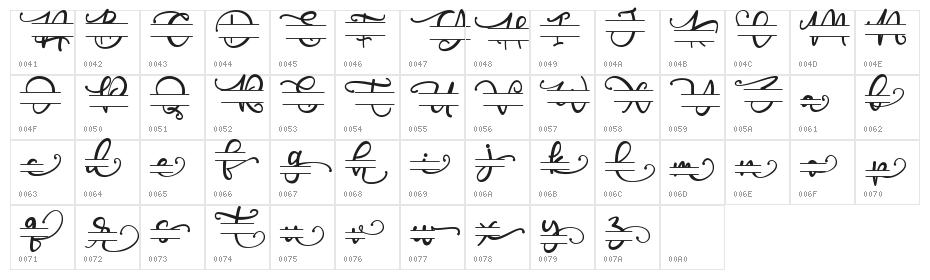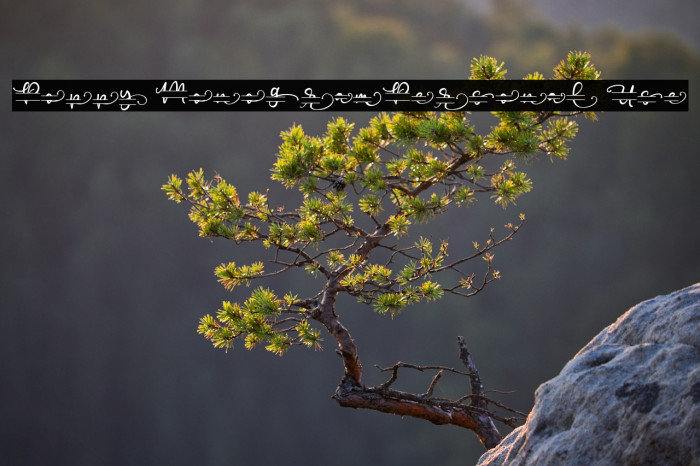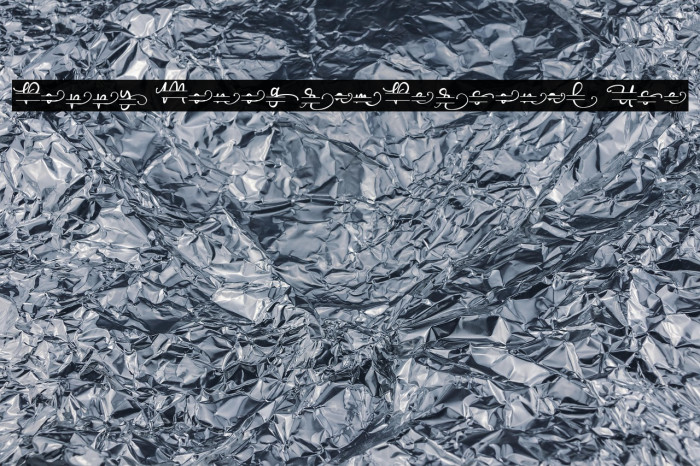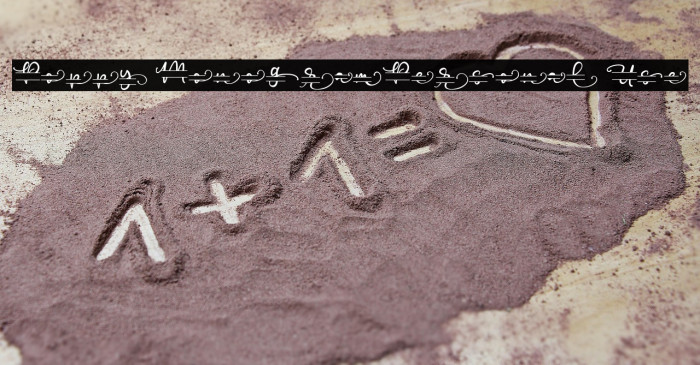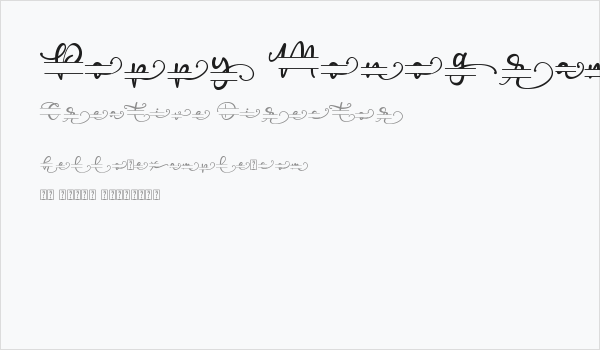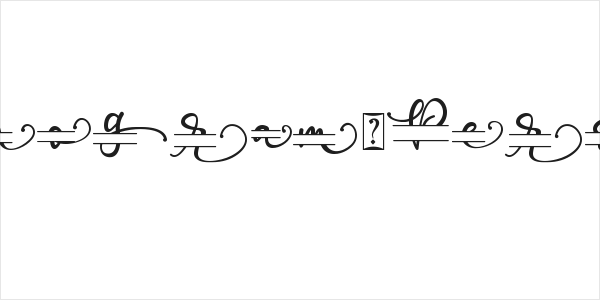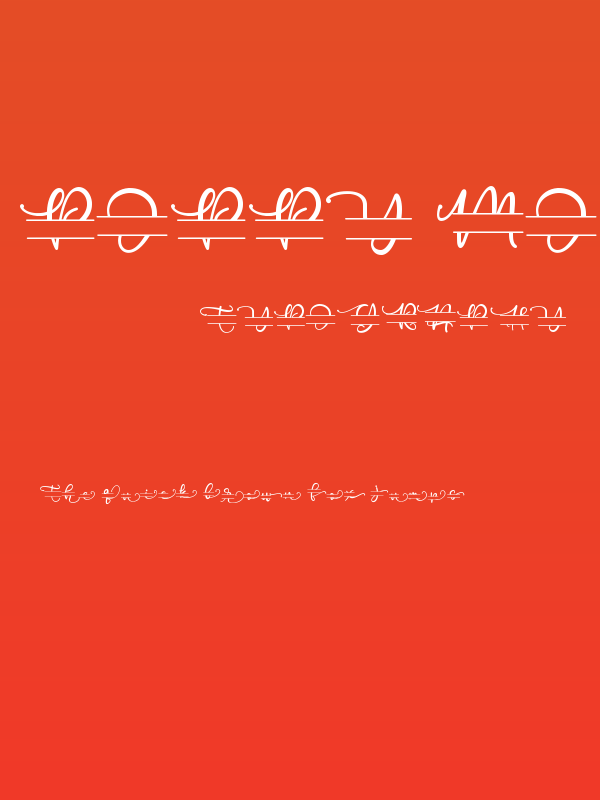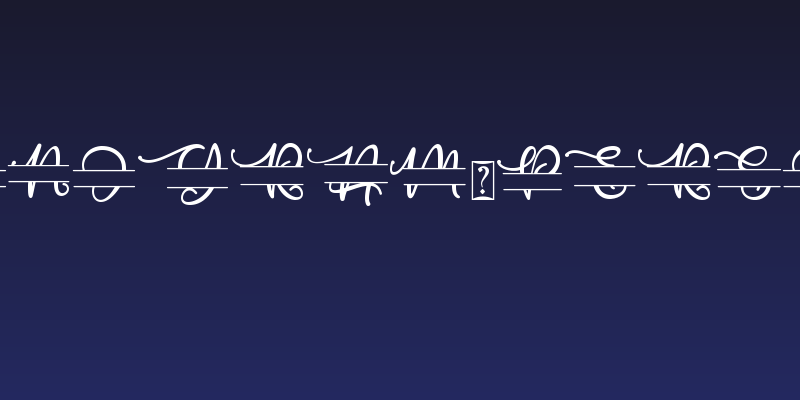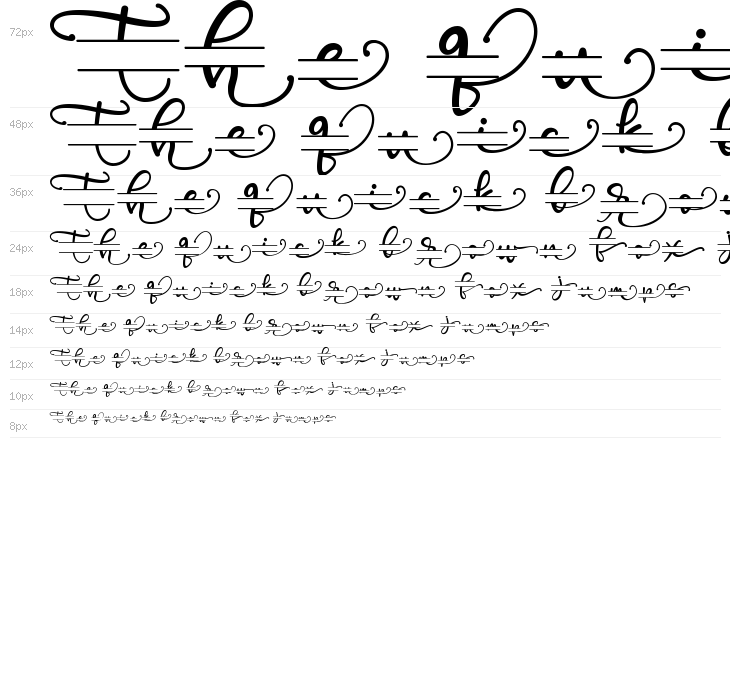
Poppy Monogram_Personal Use Font
This font features an elegant and intricate design, characterized by its ornate and flowing script style. Each letter is adorned with elaborate swirls and flourishes, creating a sophisticated and decorative appearance. The characters are connected with a continuous line, giving the font a cohesive and unified look. The overall aesthetic is reminiscent of classic calligraphy, with a modern twist that adds a unique flair. This font is ideal for projects that require a touch of elegance and refinement, such as wedding invitations, luxury branding, or artistic designs.
| Proposed Projects | Ideal for wedding invitations, luxury branding, artistic designs, and decorative purposes. |